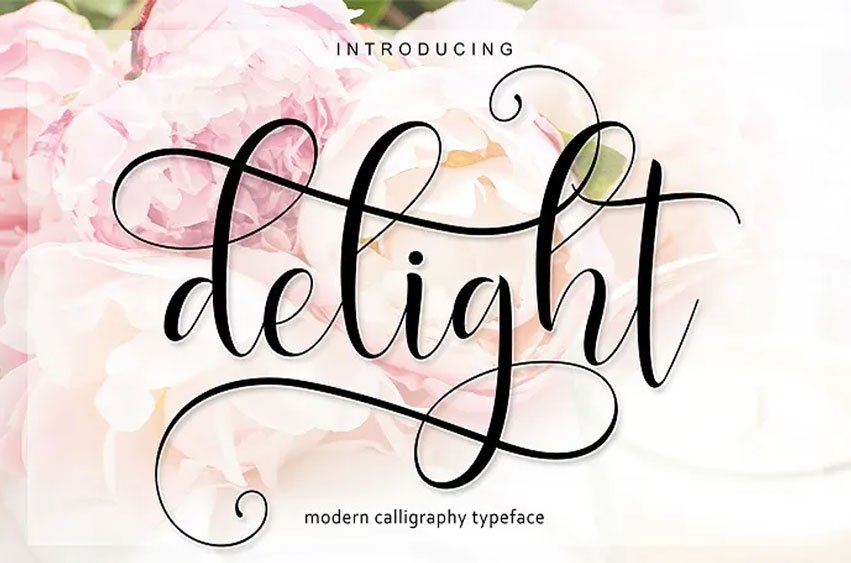
Delight Script Font New modern script with a handmade calligraphy style, decorative characters and a dancing baseline are ready for you to use! Thus, so lovely on an invitation like greeting cards, branding materials, business cards, quotes, poster, and many more.